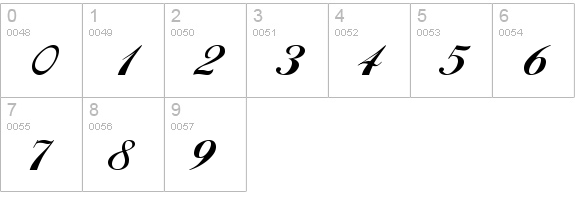
Introducing Hancock, a versatile and eye-catching font that is sure to make a statement in any project. With its unique blend of modernity and elegance, Hancock is perfect for both digital and print designs, making it a must-have for designers and creatives alike. This beautifully crafted font boasts a wide range of stylistic features, including alternate characters and ligatures, allowing for endless creative possibilities. Its clean and legible letterforms ensure readability, while its subtle curves and unique details add a touch of sophistication. What sets Hancock apart is not only its exceptional design, but also the fact that it is available for free. That's right, you can freely download Hancock font at FontsMarket.com, making it accessible to anyone who wishes to enhance their projects with its distinctive charm. Whether you're working on branding, logo design, editorial layouts, or any other creative endeavor, Hancock will elevate your work to new heights. Its versatility allows it to adapt to various design styles, from minimalistic and contemporary to elegant and classic. Don't miss out on this incredible opportunity to own a high-quality font that combines beauty, functionality, and affordability. Download Hancock font for free today at FontsMarket.com and unlock a world of endless design possibilities.